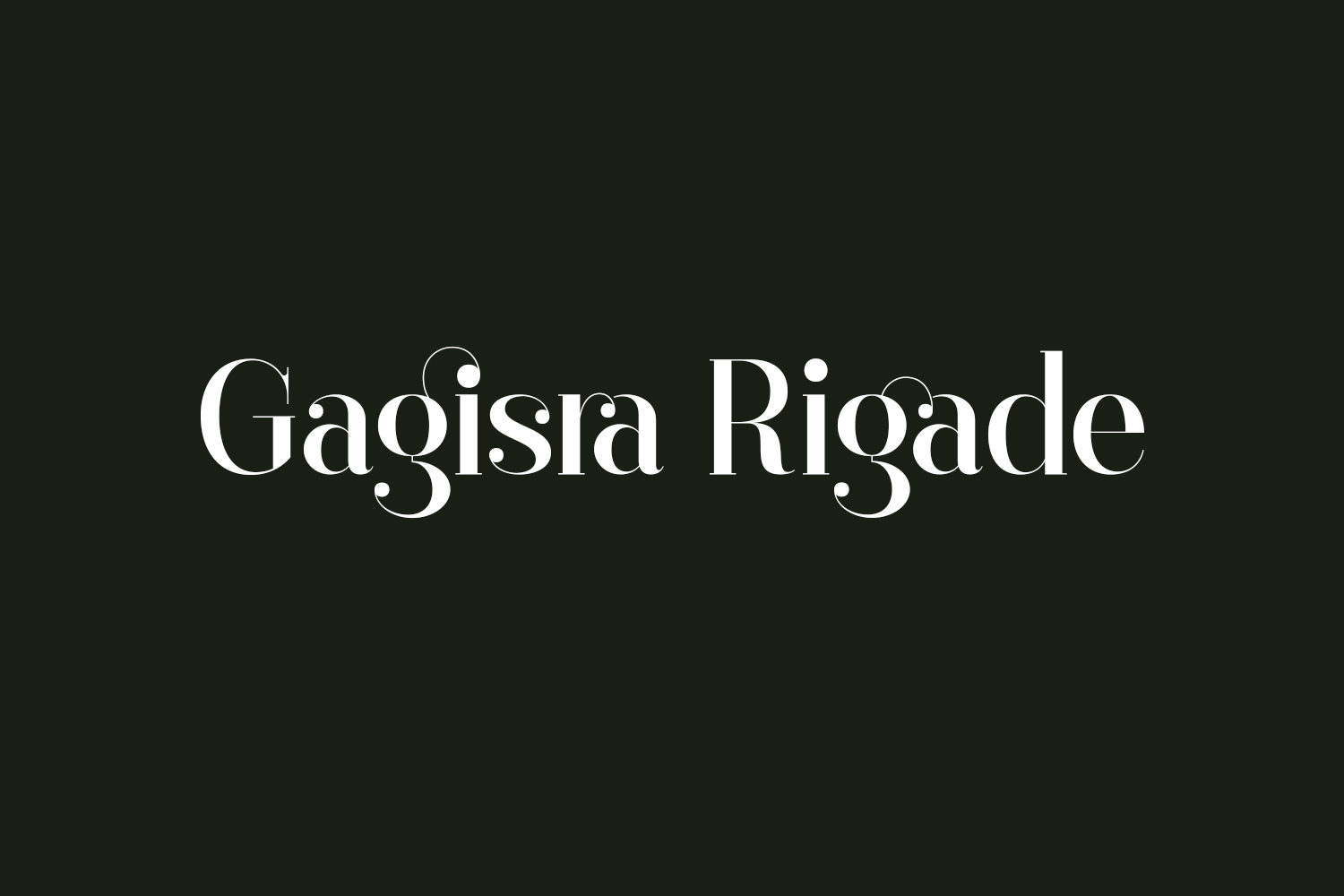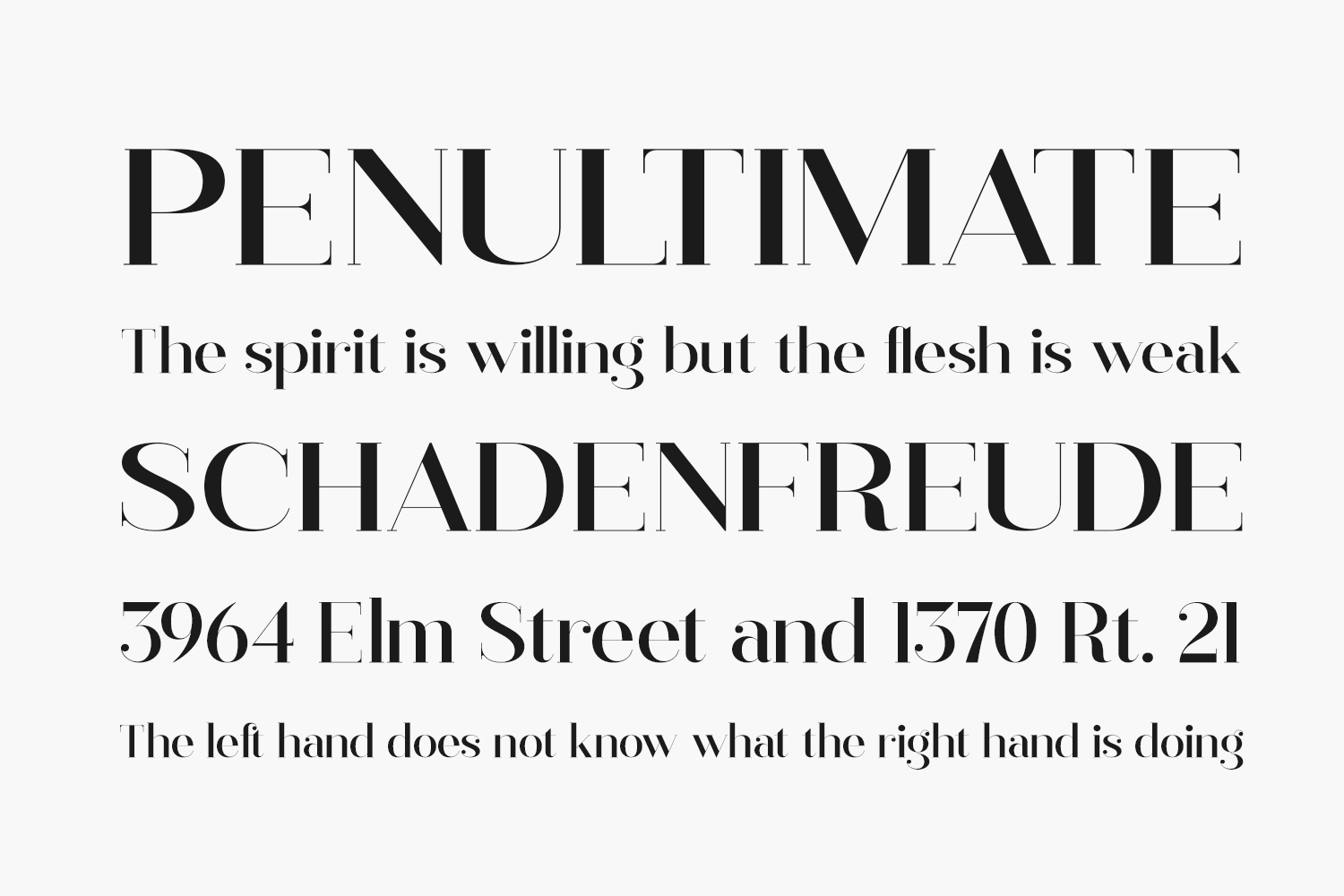
Gagisra Rigade Free Font, an elegant serif font, combines classic charm with a contemporary aesthetic. Its distinctive style makes it an ideal choice for creating sophisticated and luxurious logos, captivating book or movie titles, fashion brand identities, magazine layouts, clothing designs, lettering projects, quotes, and a myriad of other creative applications. Gagisra Rigade Free Font was designed by Storytype Studio and is free for personal use only. Please purchase the full version for commercial use.